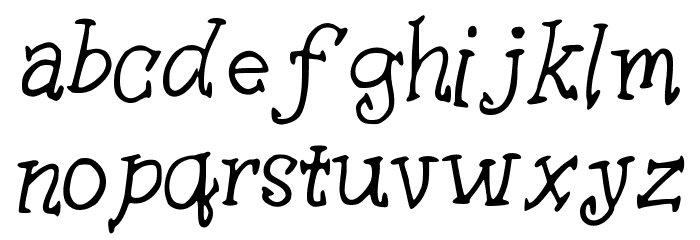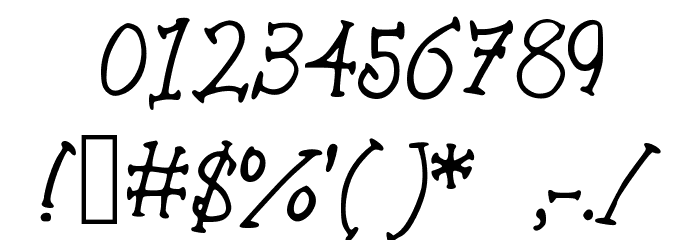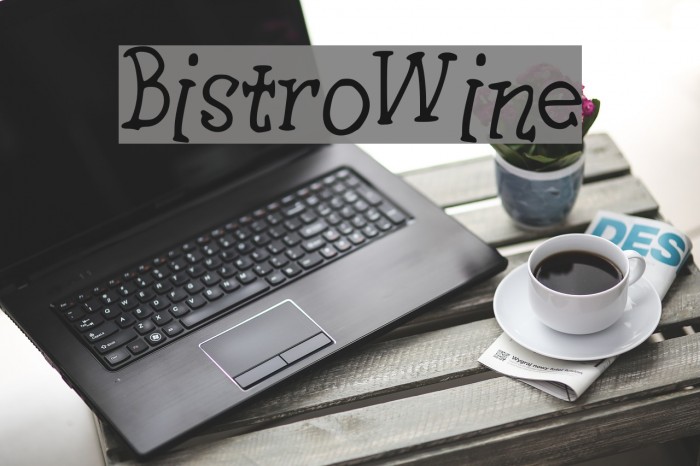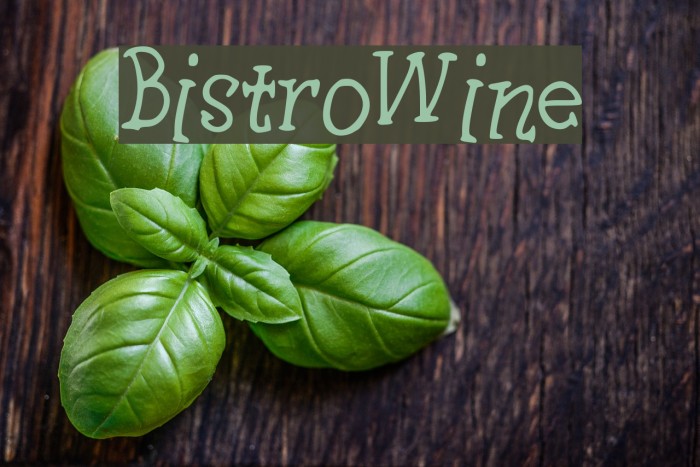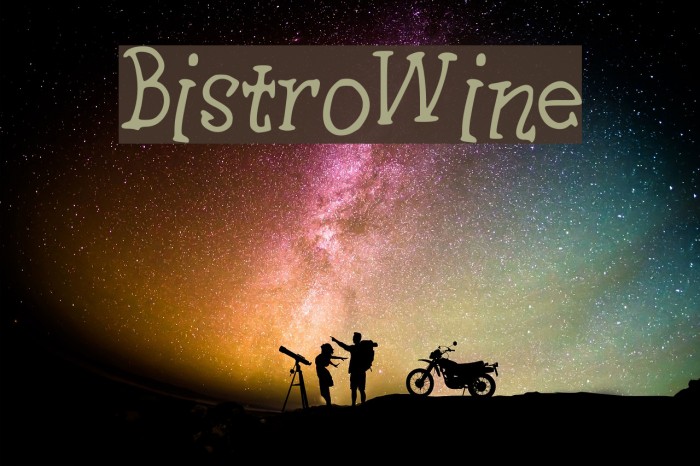
BistroWine Font
This font features a playful and whimsical style, characterized by its hand-drawn appearance and irregular strokes. The letters have a casual, informal feel, with slightly exaggerated serifs and varying line thickness that add to its charm. The uppercase letters are bold and prominent, while the lowercase letters maintain a consistent flow with a touch of quirkiness. The numerals are distinct and easy to read, matching the overall playful aesthetic. Special characters are creatively designed, maintaining the font's unique personality.
A playful, hand-drawn font with whimsical serifs and irregular strokes.
- Proposed Projects: Ideal for cafe menus, children's book covers, playful branding, and creative invitations.